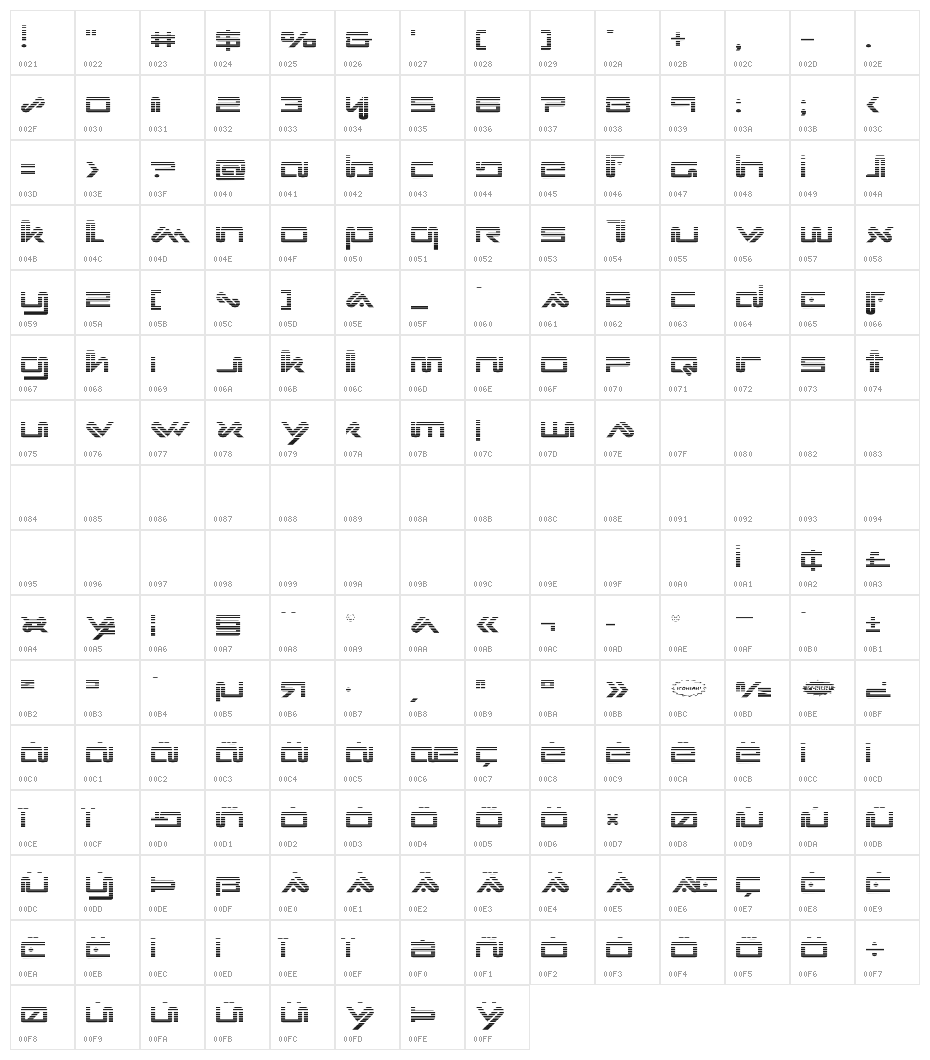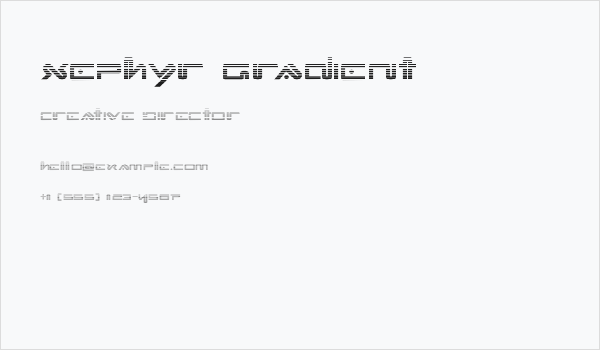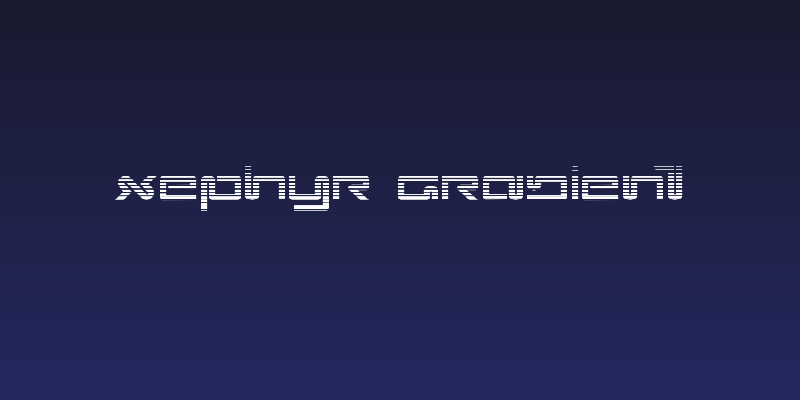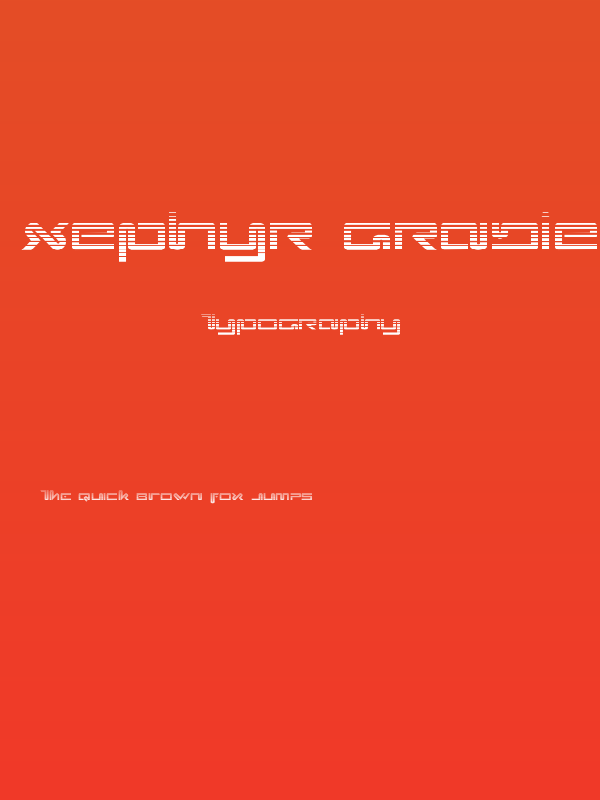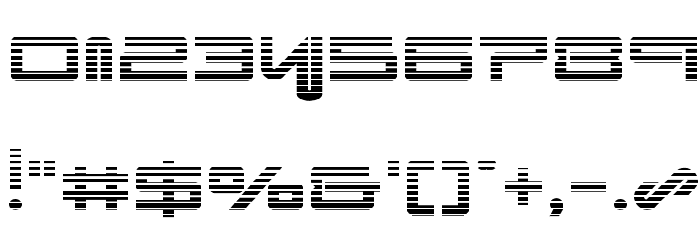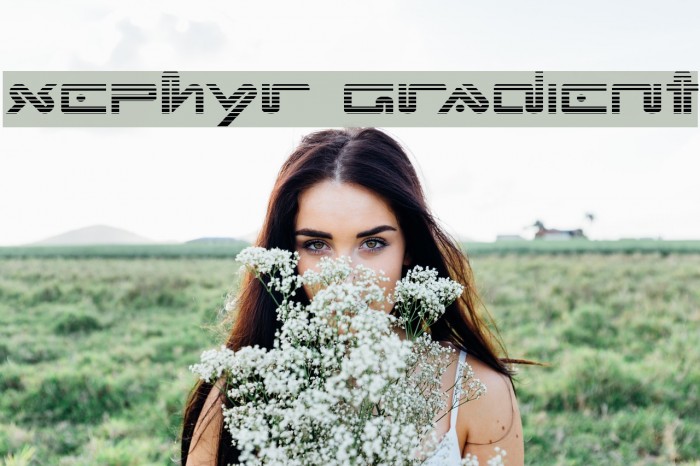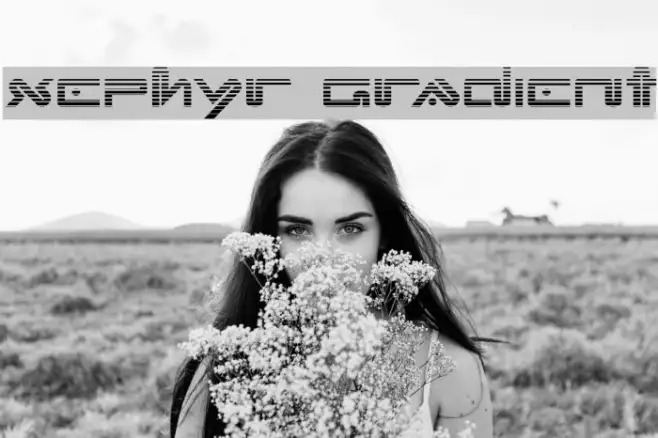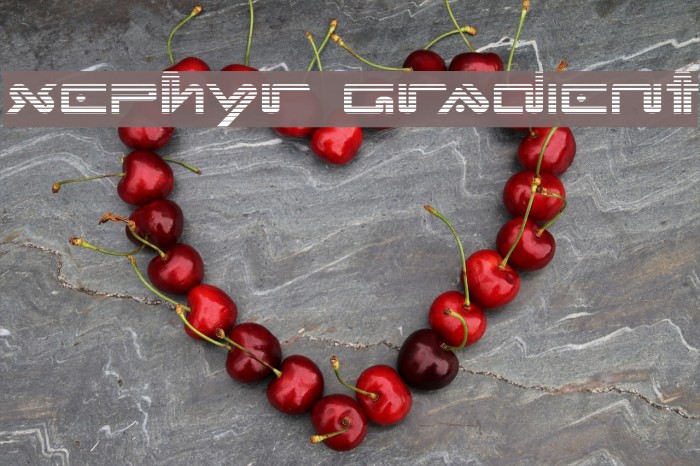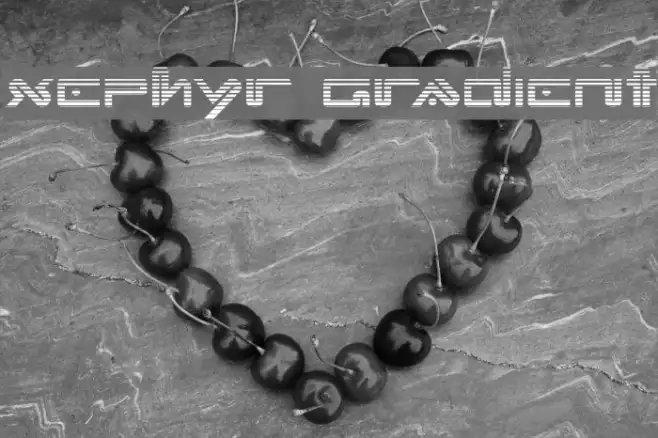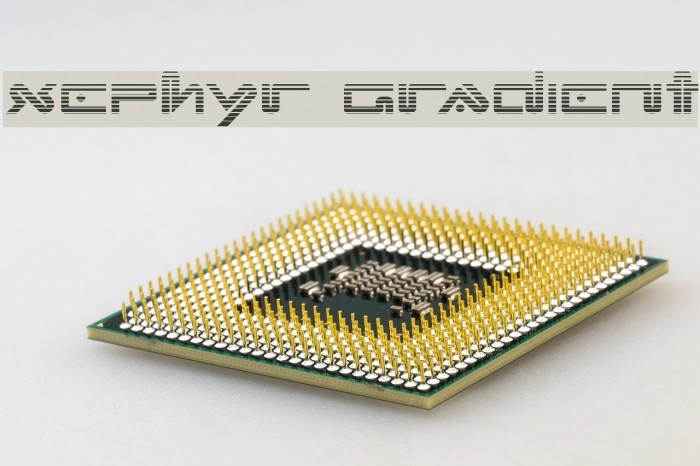
Xephyr Gradient Font
Xephyr Gradient Description
This font features a futuristic and digital aesthetic, characterized by its horizontal line pattern that creates a gradient effect across each character. The design is geometric and structured, with sharp angles and a consistent line thickness that gives it a modern and technological feel. The uppercase and lowercase letters maintain a uniform style, while the numbers and special characters integrate seamlessly with the overall design. This font's unique style makes it stand out, offering a visually striking appearance that is both bold and innovative.
| Proposed Projects | Ideal for tech-themed projects, digital art, video game interfaces, and modern branding. |